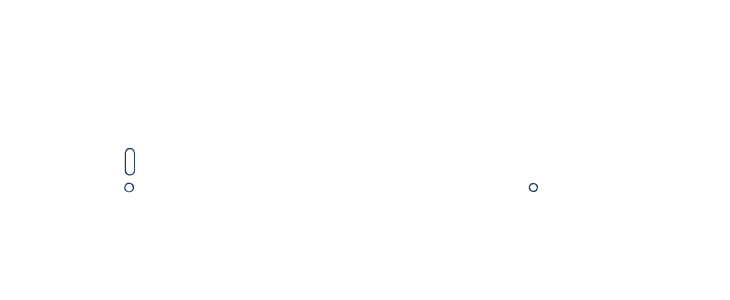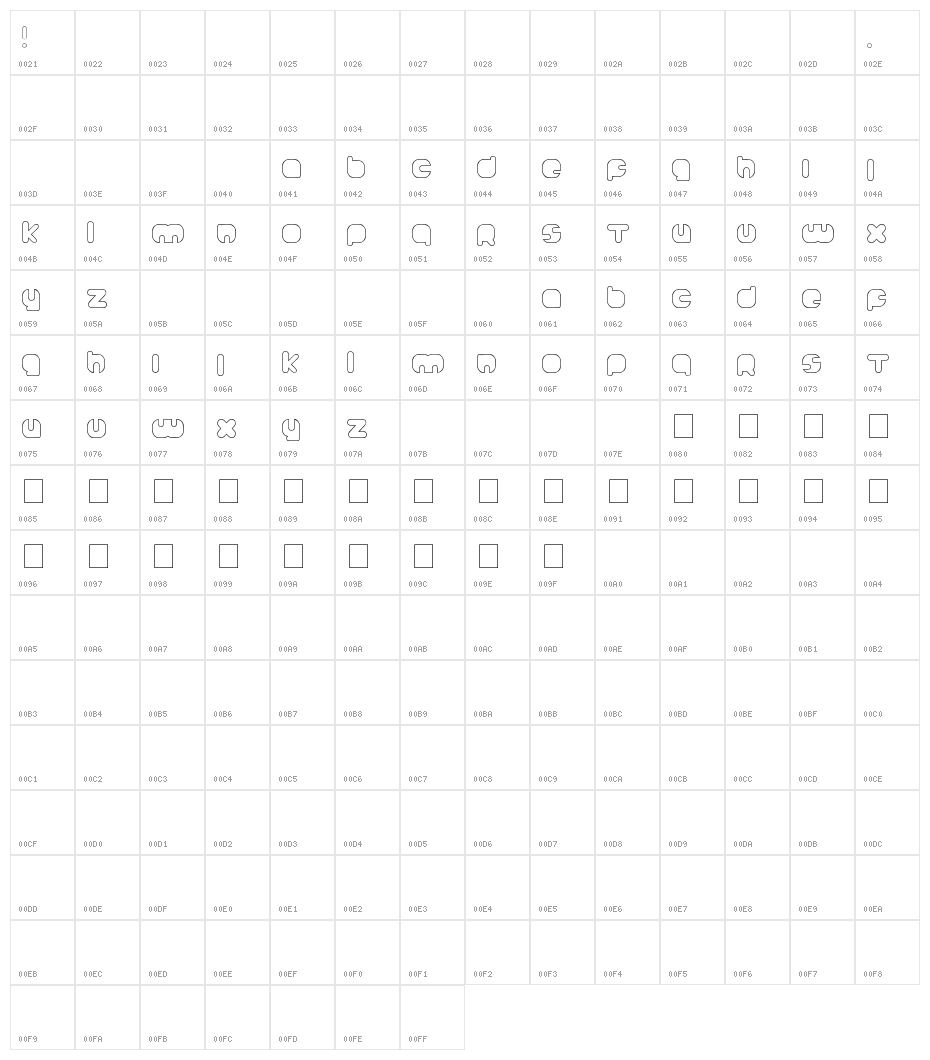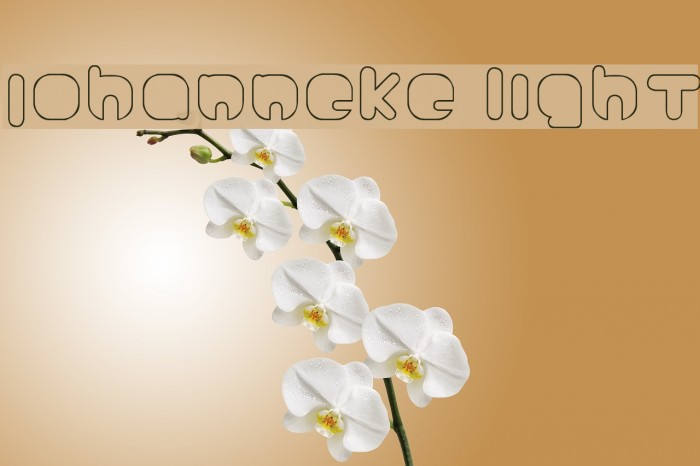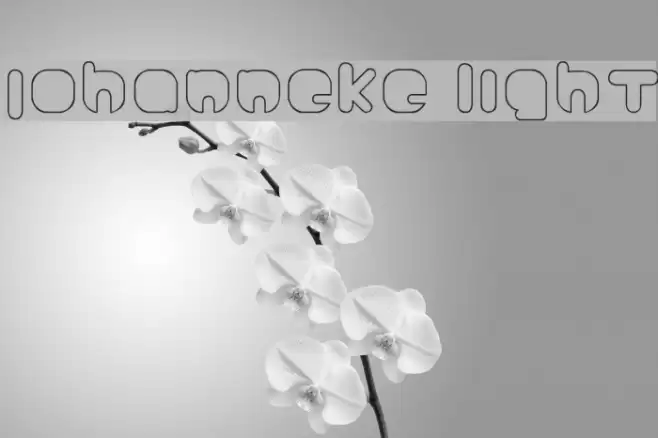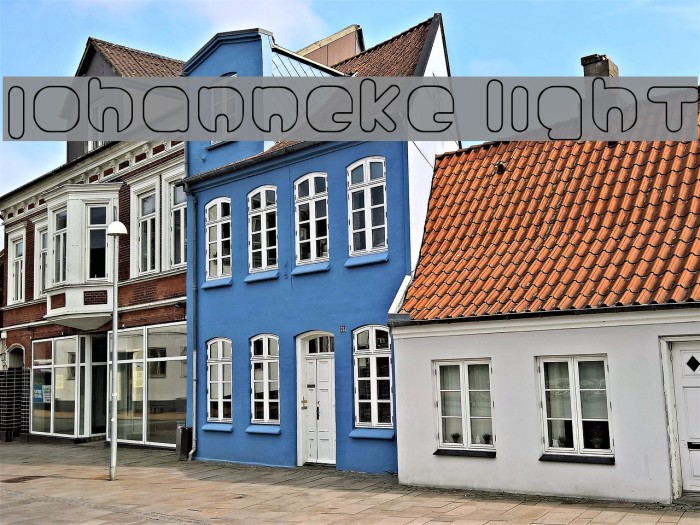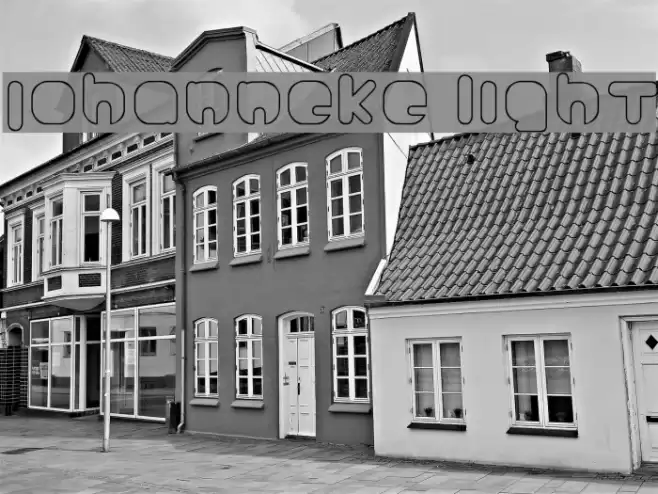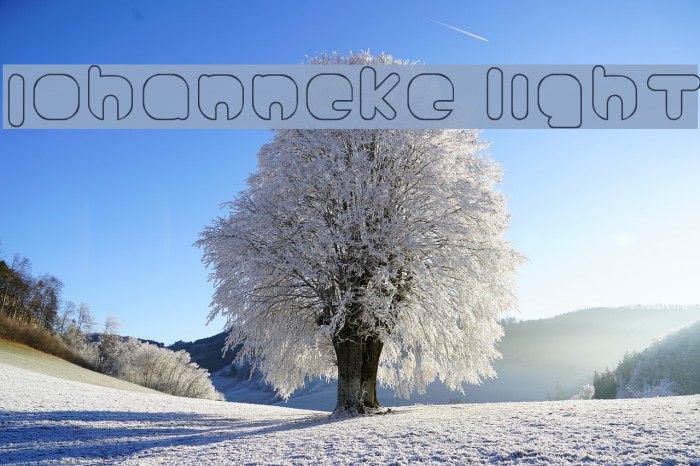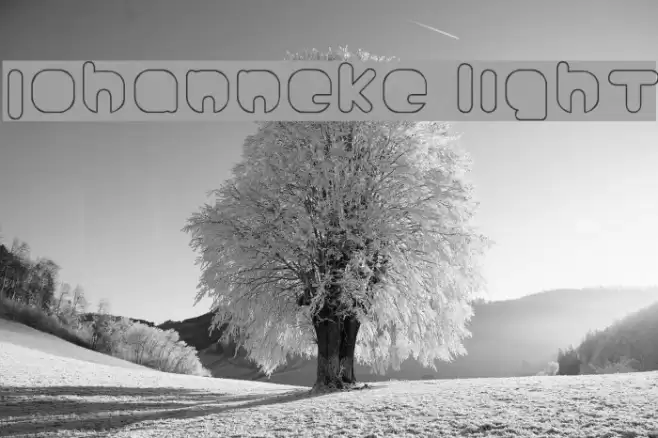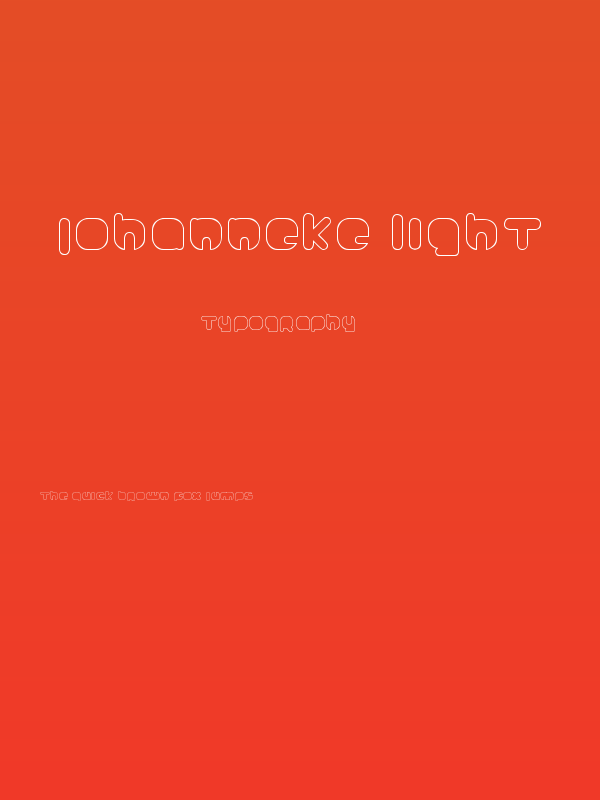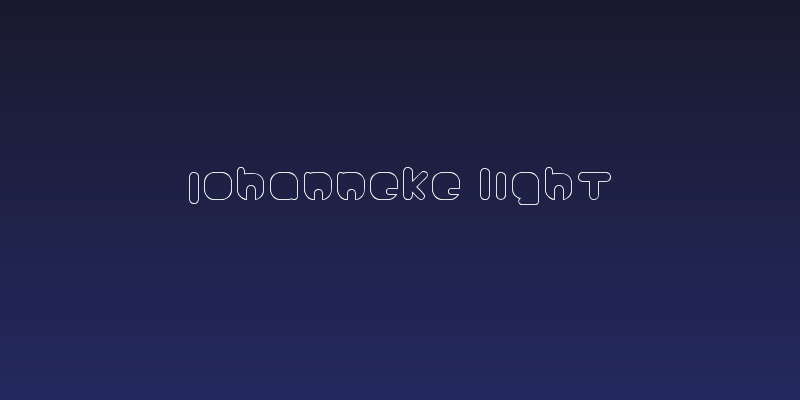
Johanneke Light Font
Johanneke Light Description
This font features a unique, rounded geometric design with a hollow interior, giving it a modern and playful appearance. The characters are constructed with consistent line thickness, creating a uniform and cohesive look. The absence of serifs and the smooth curves contribute to its contemporary style. The font maintains a balanced spacing between characters, ensuring readability while preserving its distinctive aesthetic. Its minimalistic yet bold design makes it suitable for creative and artistic projects where a standout typeface is desired.
| Proposed Projects | Ideal for branding, posters, digital media, and creative projects that require a modern and playful typeface. |